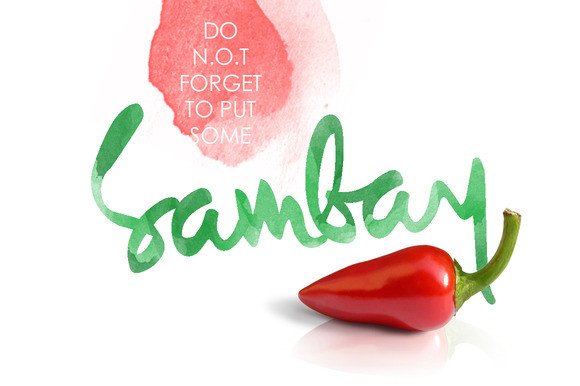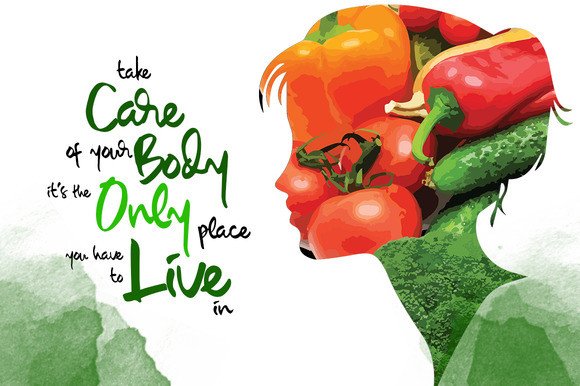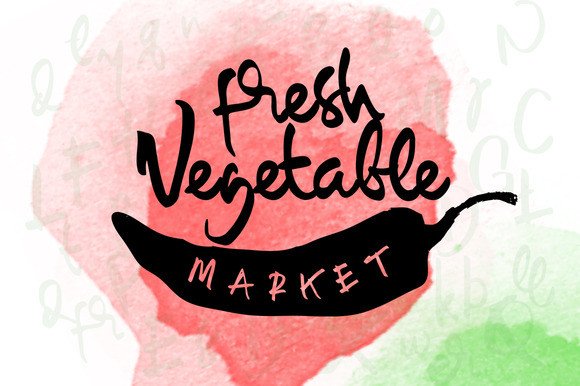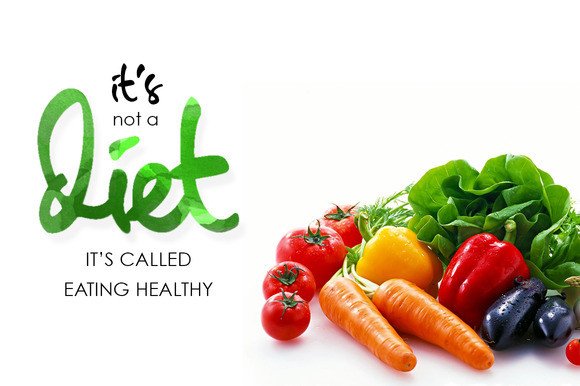
Sambay Font
About Sambay Font
Sambay is a stunning brush stroke font, perfect for giving your designs a handcrafted and relaxed feel. This legible and remarkable display font is a great way to give some charm to your designs.